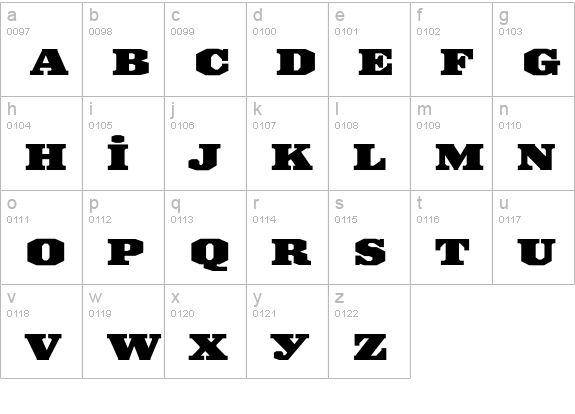
IronmongerBlack Font Details
IronmongerBlack is a striking and bold font that exudes power and strength. Its robust and angular letterforms give it a unique and edgy appeal, making it perfect for designs that require a strong visual impact. With its sleek and modern look, this font is ideal for headlines, logos, and branding materials. What sets IronmongerBlack apart is that it is not only visually captivating, but it is also available for free. Yes, you heard that right! This exceptional font can be downloaded at no cost from FontsMarket.com, a trusted source for high-quality fonts. Whether you are a graphic designer, a creative professional, or simply someone who appreciates good typography, IronmongerBlack is a valuable addition to your font library. The versatility of IronmongerBlack allows it to adapt to various design projects, from print materials to digital platforms. Its strong presence on posters, banners, and packaging designs will captivate the audience and leave a lasting impression. Furthermore, its legibility and clarity make it a reliable choice for websites, mobile applications, and social media posts. IronmongerBlack's attention to detail is evident in its well-balanced letterforms and consistent stroke widths. Each character is meticulously crafted to ensure a harmonious and cohesive overall design. This font's bold nature makes it highly suitable for designs that require emphasis, such as titles, headings, and subheadings. Whether you are looking to create a bold statement or add a touch of strength to your designs, IronmongerBlack is the perfect choice. And the best part? It won't cost you a dime! With its availability as a free download on FontsMarket.com, you can easily access this exceptional font and elevate your design projects to new heights of visual impact. So why wait? Download IronmongerBlack today and unlock the potential of captivating typography.